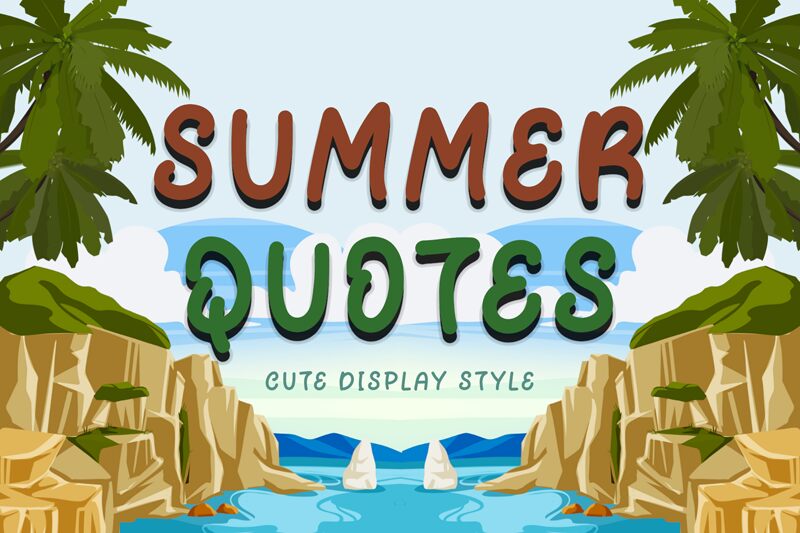
Summer Quotes font by Yoga Letter is a free handwritten font for personal use. It features smooth curves that draw the eye and gives off a modern feel with a casual and fun vibe. Summer Quotes is friendly and approachable, making it perfect for informal designs. Vibrant colors and decorative elements can stand out beautifully with this youthful typeface.
Create amusing birthday or graduation card designs with Summer Quotes. Create stickers, use it in illustrated posts on Social Media, or engage readers with special magazine cover titles. Other uses include quotes, logotypes, infographics, digital publications, websites, book covers, and personal blogs.